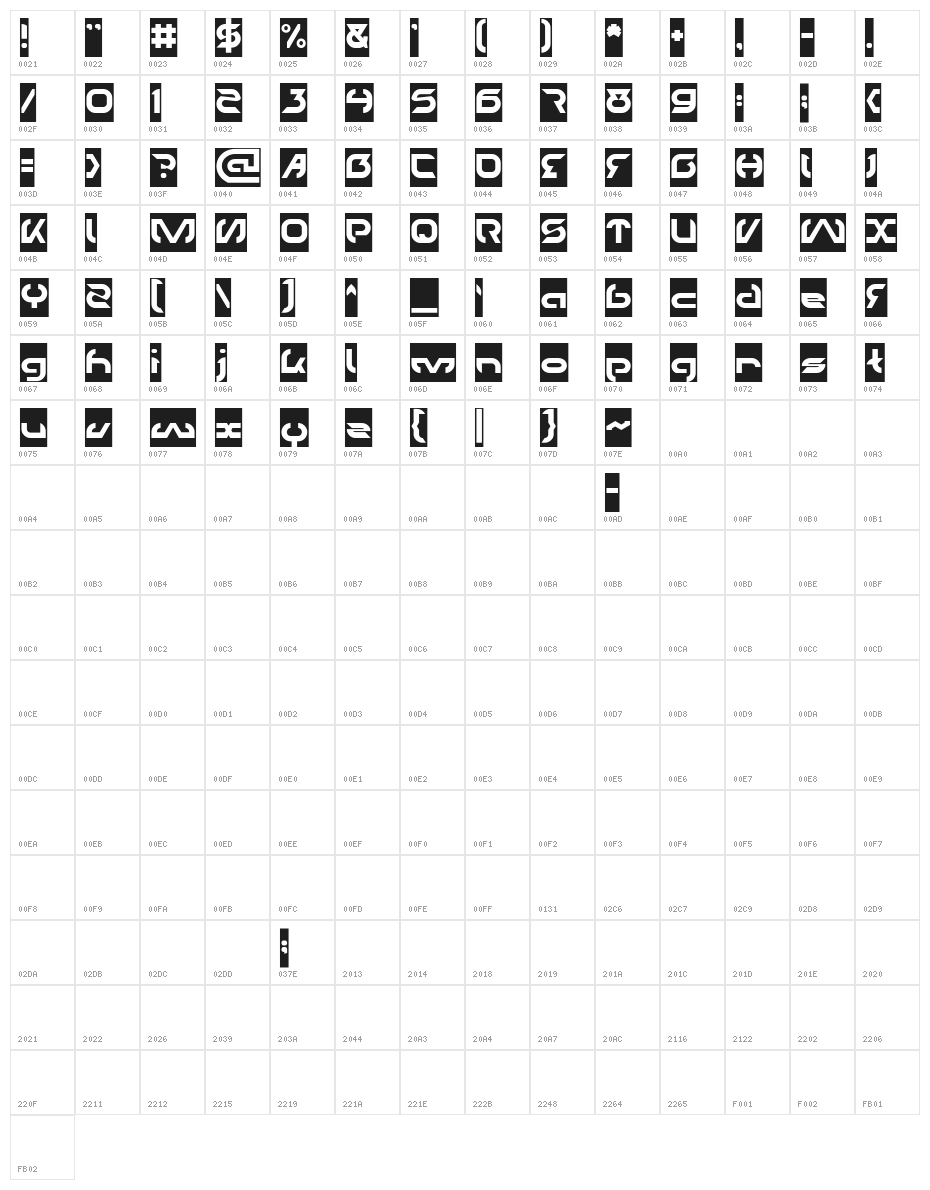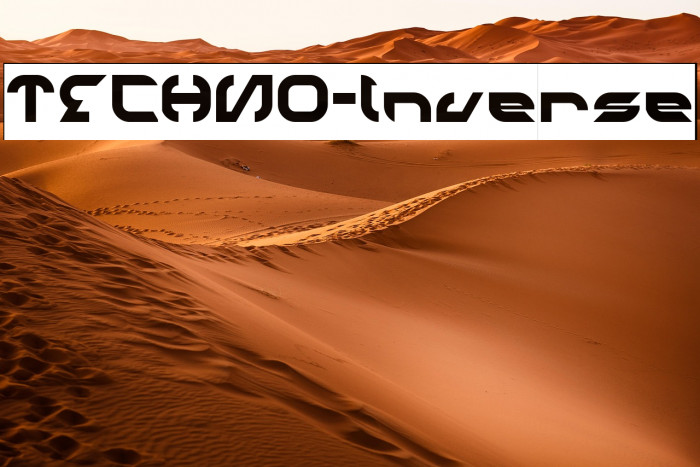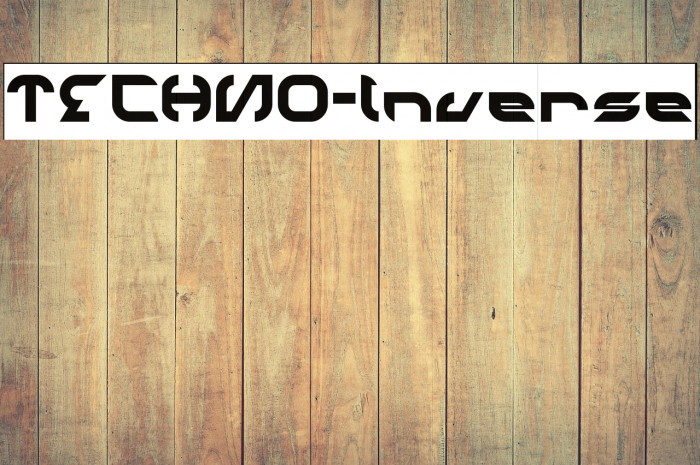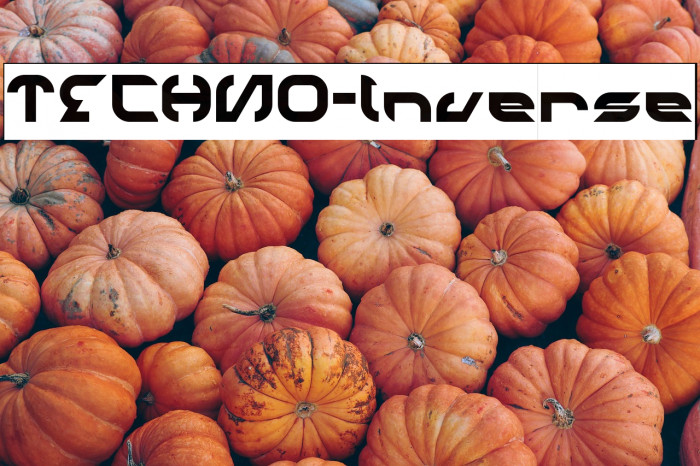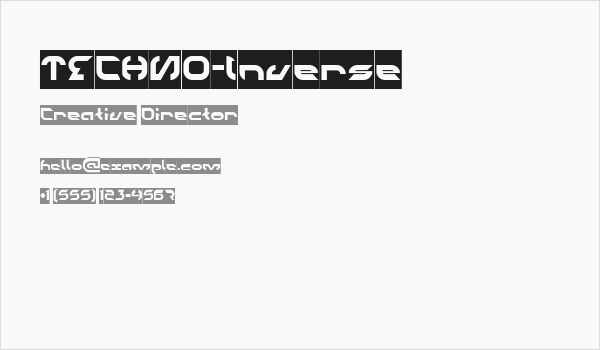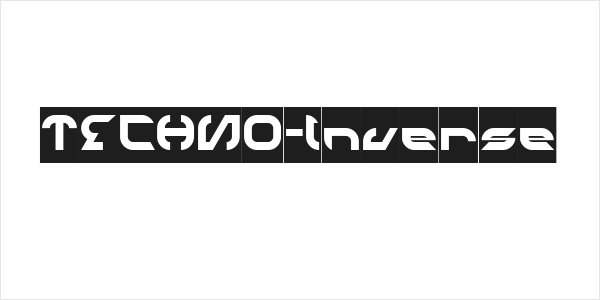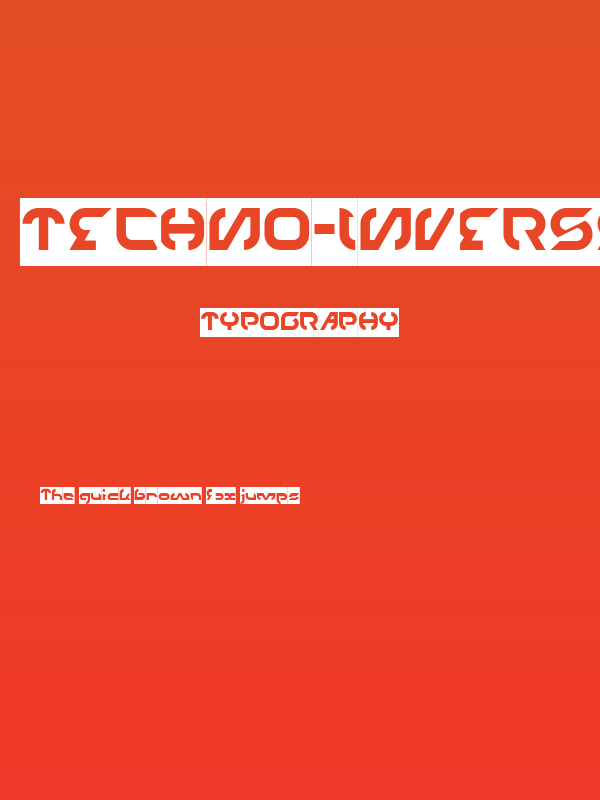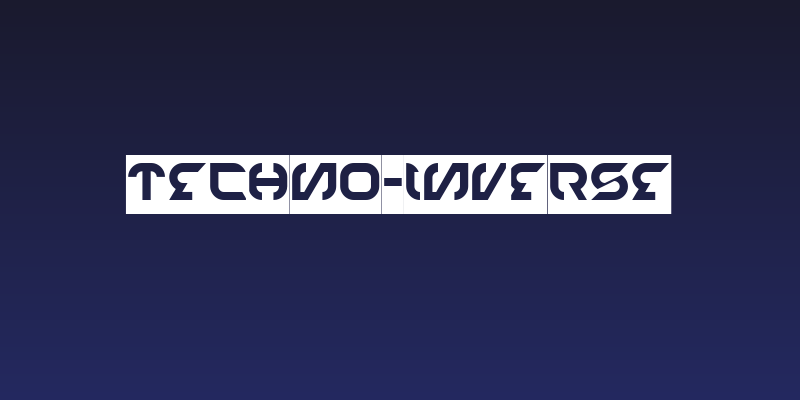
TECHNO-Inverse Font
TECHNO-Inverse Description
This font features a futuristic and geometric design, characterized by sharp angles and bold lines. The uppercase letters are distinct with a blocky appearance, while the lowercase letters maintain a consistent style that complements the uppercase. The numerals are equally bold, ensuring readability and uniformity across different uses. Special characters are designed to match the overall aesthetic, making them suitable for modern and tech-oriented projects. The font's unique style is ideal for creating a strong visual impact, with each character crafted to stand out while maintaining a cohesive look.
| Proposed Projects | Ideal for technology branding, sci-fi posters, video game titles, and modern advertising. |